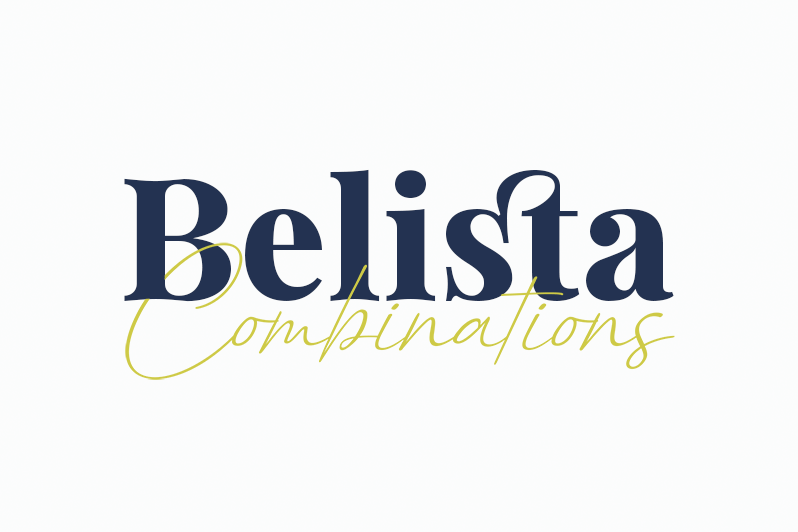
Belista is a lovely duo font (serif and script), comprising both elegance and assertiveness. Fall in love with its incredibly versatile style and use it to create gorgeous wedding invitations, beautiful stationary art, eye-catching social media posts, and much more! This version is absolutely free for personal, educational, non-profit, or charitable use. You can't use for commercial. Commercial License?https://www.creativefabrica.com/product/belista/ |